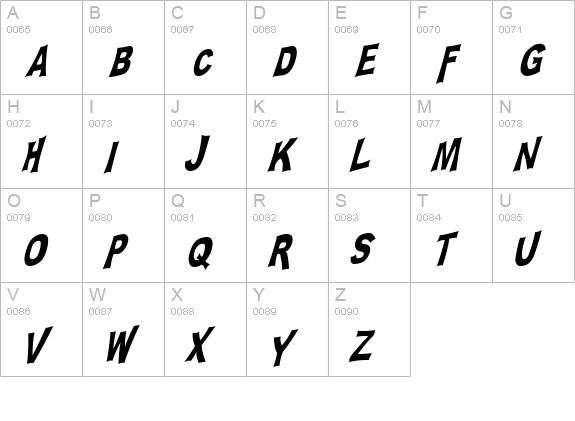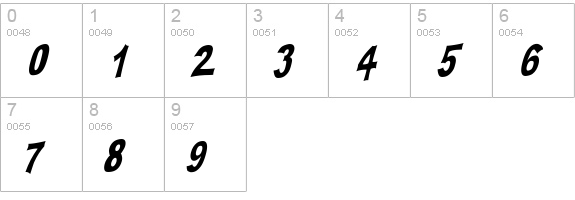
PLATSCH 2 Font Details
PLATSCH 2 font is a modern and stylish typeface that exudes a sense of creativity and playfulness. Its unique design features bold and dynamic characters that are sure to make your designs stand out. The font is perfect for a variety of projects, from branding and advertising to social media graphics and more. What sets PLATSCH 2 font apart is that it is available for free download at FontsMarket.com. This means you can easily access this eye-catching font and incorporate it into your projects without any cost. Whether you're a designer looking to add a touch of flair to your work or a creative individual wanting to experiment with different fonts, PLATSCH 2 font is a versatile choice that won't disappoint. Download it today and let your creativity shine!